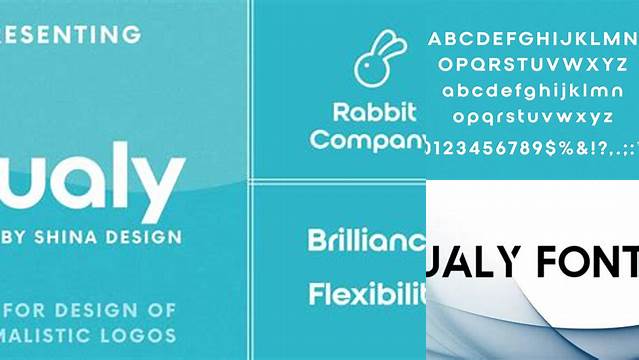
Qualy Logo Font: Find Free Downloads & Alternatives
Hey guys! Are you on the hunt for the perfect font to capture the essence of Qualy's iconic logo? You've come to the right place! In this comprehensive guide, we'll dive deep into the world of Qualy logo fonts, exploring what makes them so distinctive and where you can find free downloads. We'll cover everything from identifying the font, understanding its characteristics, and navigating licensing, to alternative options and how to use it effectively in your projects. Get ready to unleash your creativity with the power of typography!
Identifying the Qualy Logo Font
First things first, let's talk about how to identify the Qualy logo font. The Qualy logo is instantly recognizable, and a significant part of its appeal lies in its typography. Often, brands use custom fonts or modified versions of existing fonts to create a unique identity. This is a crucial aspect of branding, as the font helps convey the brand's personality and values. To figure out the Qualy font, you can start by analyzing its key characteristics. Look at the shape of the letters, the thickness of the strokes, and any unique features. Is it a sans-serif or serif font? Does it have rounded edges or sharp corners? These details can help narrow down your search. Websites like MyFonts, WhatFont, and Font Squirrel offer font identification tools where you can upload an image of the logo, and the tool will attempt to identify the font or suggest similar ones. These tools are super handy for anyone looking to match a specific font or find alternatives with a similar vibe. Another great approach is to consult typography forums and communities. There are tons of font enthusiasts out there who love to help identify fonts. Just post a clear image of the Qualy logo and ask if anyone recognizes the font. You'd be surprised how quickly someone might be able to pinpoint it! Remember, identifying the exact font might be tricky if it's a custom creation, but don't worry – we'll explore some fantastic alternatives later on. Understanding the nuances of the Qualy logo font is the first step in finding the perfect match for your design needs, and by using the methods described, you'll be well on your way to unlocking the secrets behind this iconic typeface.
Characteristics of the Qualy Logo Font
Okay, so you're curious about the characteristics of the Qualy logo font, huh? Let's break it down! The Qualy logo, known for its clean and modern aesthetic, utilizes a font that embodies these qualities. Typically, the font is a sans-serif typeface, meaning it lacks the small decorative strokes (serifs) that you see on fonts like Times New Roman. This gives it a contemporary and approachable feel, perfect for a brand aiming to convey innovation and simplicity. The letterforms in the Qualy logo font are generally geometric, featuring clean lines and a consistent weight throughout. This consistency creates a sense of balance and visual harmony, making the logo easy on the eyes and highly memorable. Think about how the letters interact with each other – are they tightly spaced, creating a compact look, or do they have more breathing room? The spacing, also known as kerning and tracking, plays a crucial role in the overall readability and impact of the font. The Qualy font often employs a slightly condensed or semi-bold weight, which adds emphasis without being overly heavy. This subtle boldness helps the logo stand out, especially in smaller sizes or on various backgrounds. Color also plays a role in how we perceive a font's characteristics. While the font itself has inherent features, the color used in the logo can either enhance or soften its impact. For instance, a bright, vibrant color can make a clean font appear more playful, while a muted tone can give it a sophisticated edge. Understanding these characteristics is super important because it allows you to appreciate the design choices behind the Qualy logo and helps you find fonts that share similar traits. When you're searching for alternatives or trying to replicate the feel of the logo, keeping these elements in mind will guide you towards the best options. By paying attention to these details, you'll be able to select a font that not only looks great but also effectively communicates the message you want to convey. So, next time you see the Qualy logo, take a moment to appreciate the thought and effort that went into choosing the perfect typeface!
Exploring Font Alternatives
Okay, so maybe you can't find the exact Qualy logo font free download, or perhaps you're looking for something similar but with its own unique flair. No worries! There are tons of fantastic font alternatives out there that can capture the essence of the Qualy logo while still bringing something fresh to the table. Let's dive into some top contenders! When you're searching for alternatives, remember the key characteristics we discussed earlier: sans-serif, geometric, clean lines, and a slightly condensed or semi-bold weight. Keeping these in mind will help you narrow down your options and find fonts that truly resonate with the Qualy aesthetic. One excellent alternative is Montserrat. This is a super popular sans-serif font that's available on Google Fonts, meaning it's completely free to use. Montserrat has a modern, geometric feel with excellent readability, making it a great choice for logos, headings, and body text. Another fantastic option is Lato. Also available on Google Fonts, Lato is a sans-serif font with a slightly warmer and more approachable vibe than Montserrat. It's known for its semi-rounded details, which give it a friendly and inviting feel. If you're looking for something a bit bolder, Open Sans is another solid choice from Google Fonts. It's a highly versatile sans-serif font that works well in a variety of contexts, from websites to print materials. For a more contemporary and slightly futuristic feel, consider Raleway. This elegant sans-serif font has a geometric design with a touch of sophistication. It's available on Google Fonts and is a great option for brands looking to convey innovation and style. If you're willing to venture beyond Google Fonts, Poppins is another fantastic choice. This geometric sans-serif font has a clean and modern look with a wide range of weights, giving you plenty of flexibility. Remember, the best font alternative will depend on your specific project and the overall message you want to convey. Don't be afraid to experiment with different fonts and see how they look in your designs. Try pairing them with different colors and layouts to find the perfect combination. Exploring font alternatives is a fun way to discover new favorites and add your own personal touch to your projects. So go ahead, get creative, and find the font that speaks to you!
How to Use the Font Effectively
Alright, you've found a great font that's similar to the Qualy logo font, you've checked the license, and you're ready to roll! But how do you actually use the font effectively? Typography is an art, and using fonts well is key to creating visually appealing and impactful designs. Let's talk about some tips and tricks to make your typography shine. First off, consider hierarchy. Hierarchy is all about guiding the viewer's eye through your design and making sure the most important information stands out. You can create hierarchy using different font sizes, weights, and styles. For example, use a larger, bolder font for headings and a smaller, lighter font for body text. This helps create a clear visual structure and makes your content easy to read. Next up, think about legibility and readability. Legibility refers to how easily individual letters can be distinguished, while readability refers to how easily words and blocks of text can be read. Choose fonts that are legible in different sizes and weights. Avoid overly decorative or stylized fonts for body text, as they can be difficult to read in large blocks. Pay attention to letter spacing (tracking) and line spacing (leading). Tight letter spacing can make text look cramped, while loose letter spacing can make it look disjointed. Adjust the tracking to create a balanced and visually pleasing appearance. Similarly, adjust the leading to ensure that lines of text are spaced comfortably apart. Too little leading can make text look dense, while too much leading can make it look disconnected. Color is another crucial element. The color of your font should complement the background and other design elements. High contrast between the text and background is essential for readability. Dark text on a light background (or vice versa) is generally the easiest to read. Pairing fonts effectively is also key. While you might be tempted to use multiple fonts in your design, it's often best to stick to a maximum of two or three. Choose fonts that complement each other and create a cohesive look. A common approach is to pair a sans-serif font for headings with a serif font for body text, or vice versa. Finally, experiment and iterate! Don't be afraid to try different combinations and see what works best. Typography is a process of refinement, and it often takes a few tries to get it just right. Using the font effectively involves a combination of technical skills and artistic judgment. By paying attention to these guidelines, you can create typography that's both beautiful and functional.